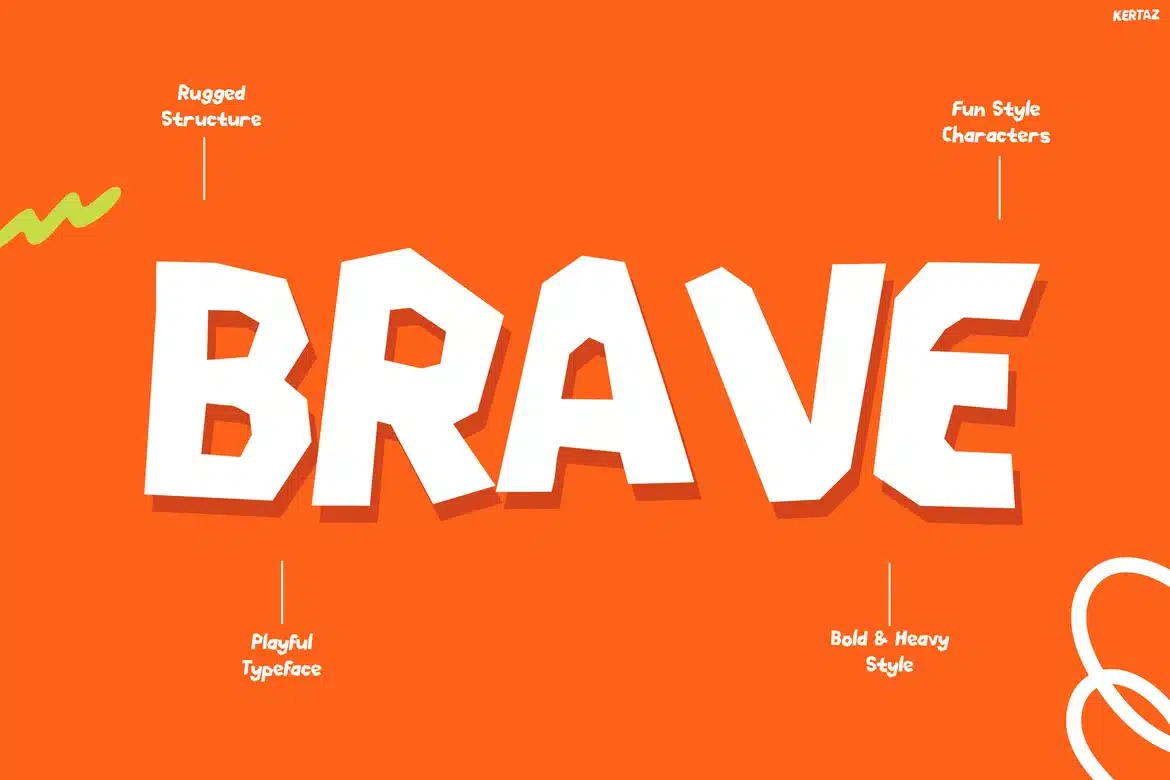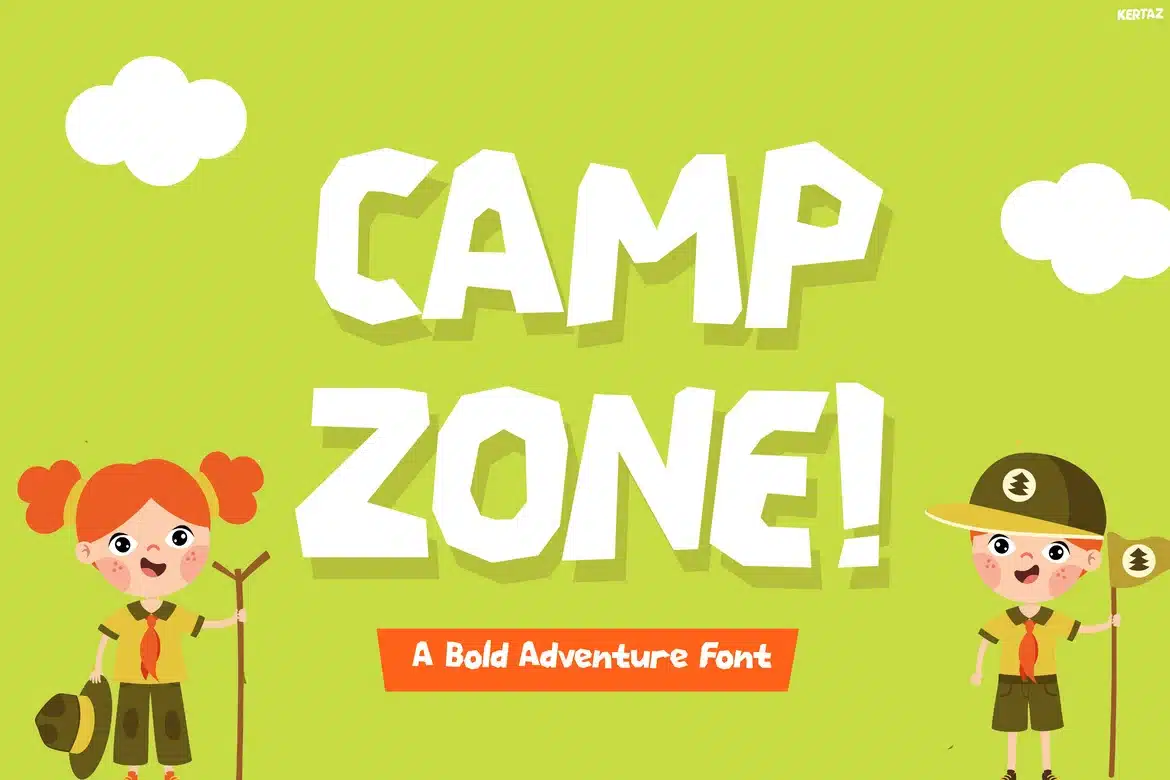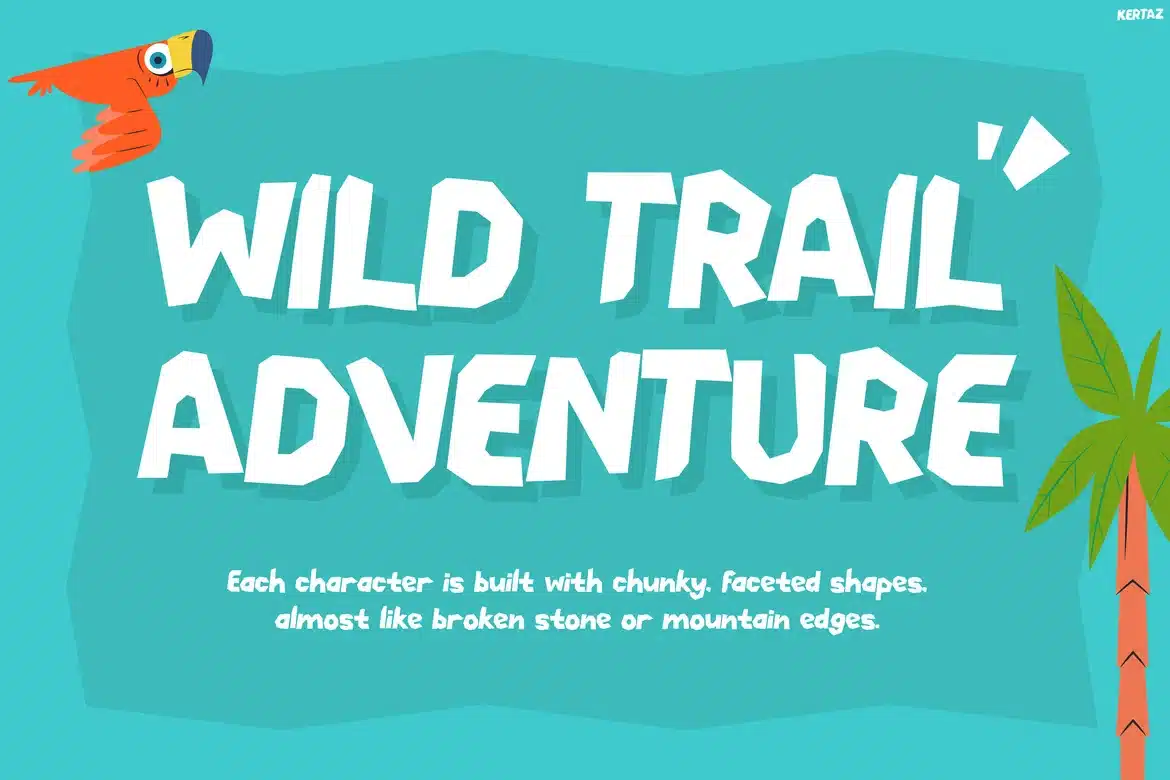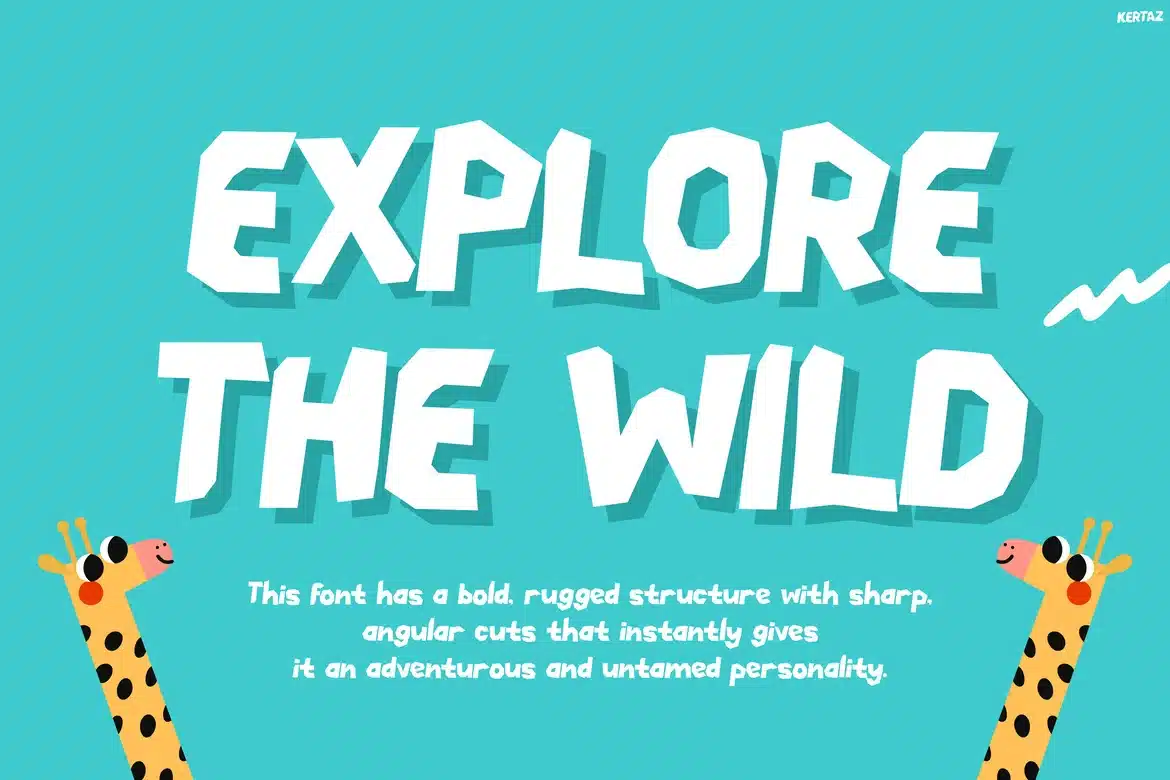
Kertaz – Adventure Kids Display Font
Kertaz is a playful bold display typeface for kids branding and adventure-themed visuals, designed with chunky geometric forms, slightly irregular edges, and a lively bouncy rhythm that brings instant energy to any layout. Its expressive structure blends rounded corners with sharp, handcrafted cuts, creating a friendly yet dynamic tone ideal for children’s books, outdoor campaigns, and social media graphics.
The vibe is bold, playful, and adventurous, making it highly suitable for markets like kids products, educational content, summer events, and travel-themed branding. Its strong letterforms ensure excellent readability while maintaining a fun personality, perfect for headlines, posters, packaging, and digital content.
Kertaz is built to grab attention in seconds—whether you're designing a kids book cover, an outdoor adventure poster, or a vibrant social media campaign. Its cheerful and energetic character helps brands communicate excitement, curiosity, and exploration. From playful app UI designs to bold editorial layouts, Kertaz delivers a visually engaging tone that connects with young audiences and adventurous spirits. It’s the go-to choice for designers who want their message to feel lively, approachable, and full of motion.
Key Features :
Bold & Playful Structure
- Chunky geometric shapes with expressive edges
- Bouncy baseline for a lively visual rhythm
- Strong presence for high-impact headlines
Kid-Friendly Personality
- Warm, cheerful, and approachable tone
- Perfect for children’s content and fun branding
- Enhances storytelling and visual engagement
Versatile Creative Use
- Ideal for posters, packaging, and merchandise
- Great for social media, gaming, and app UI
- Works well in both print and digital formats
Designed for Attention
- High readability even at large sizes
- Eye-catching forms that stand out instantly
- Supports bold and colorful design styles